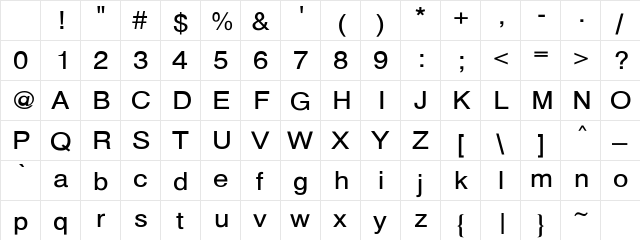
PartridgeExt-No Regular
Design Context for PartridgeExt-No
PartridgeExt-No is a composed and adaptable typeface that performs quietly and consistently across a wide range of design contexts.